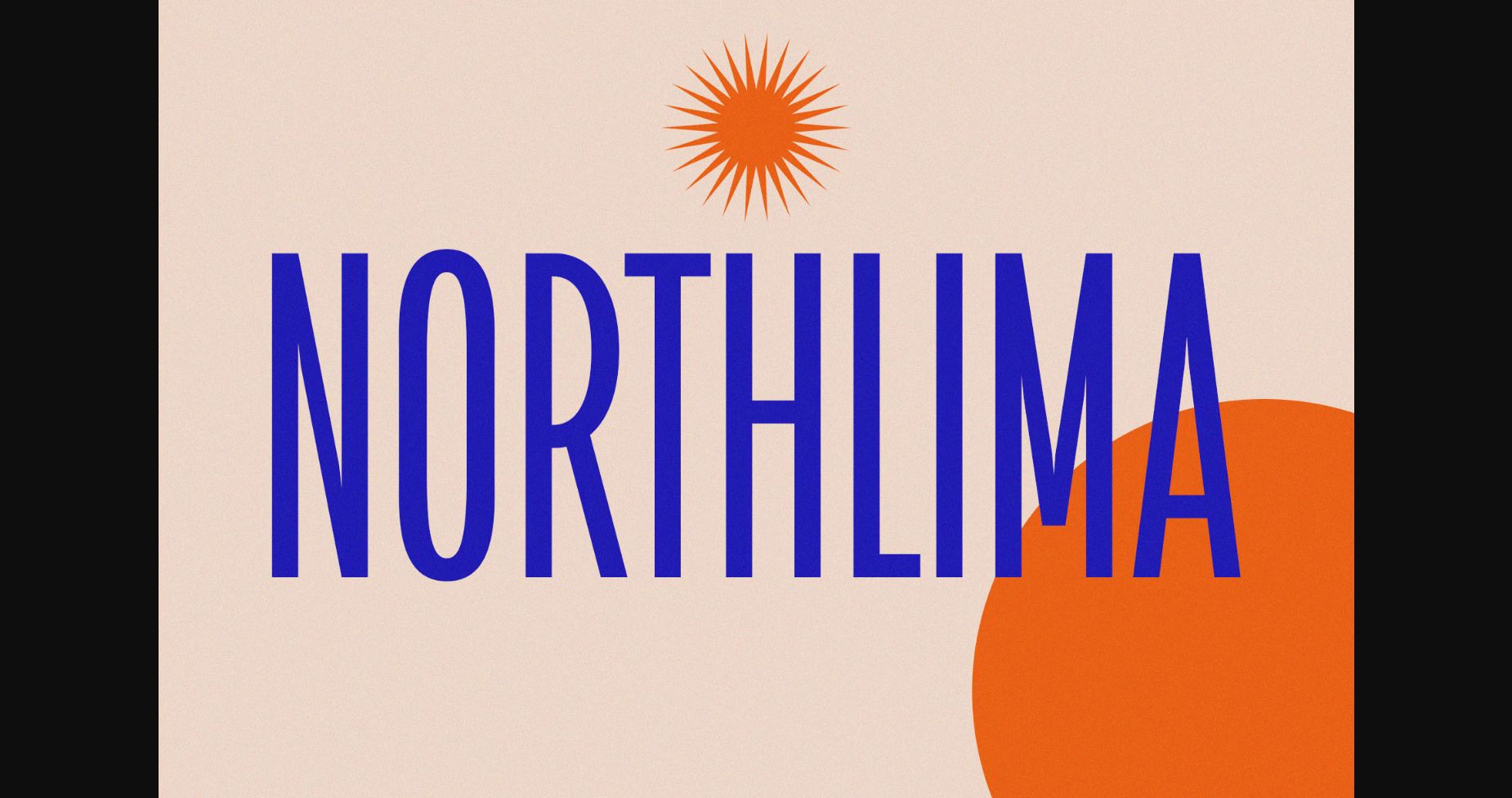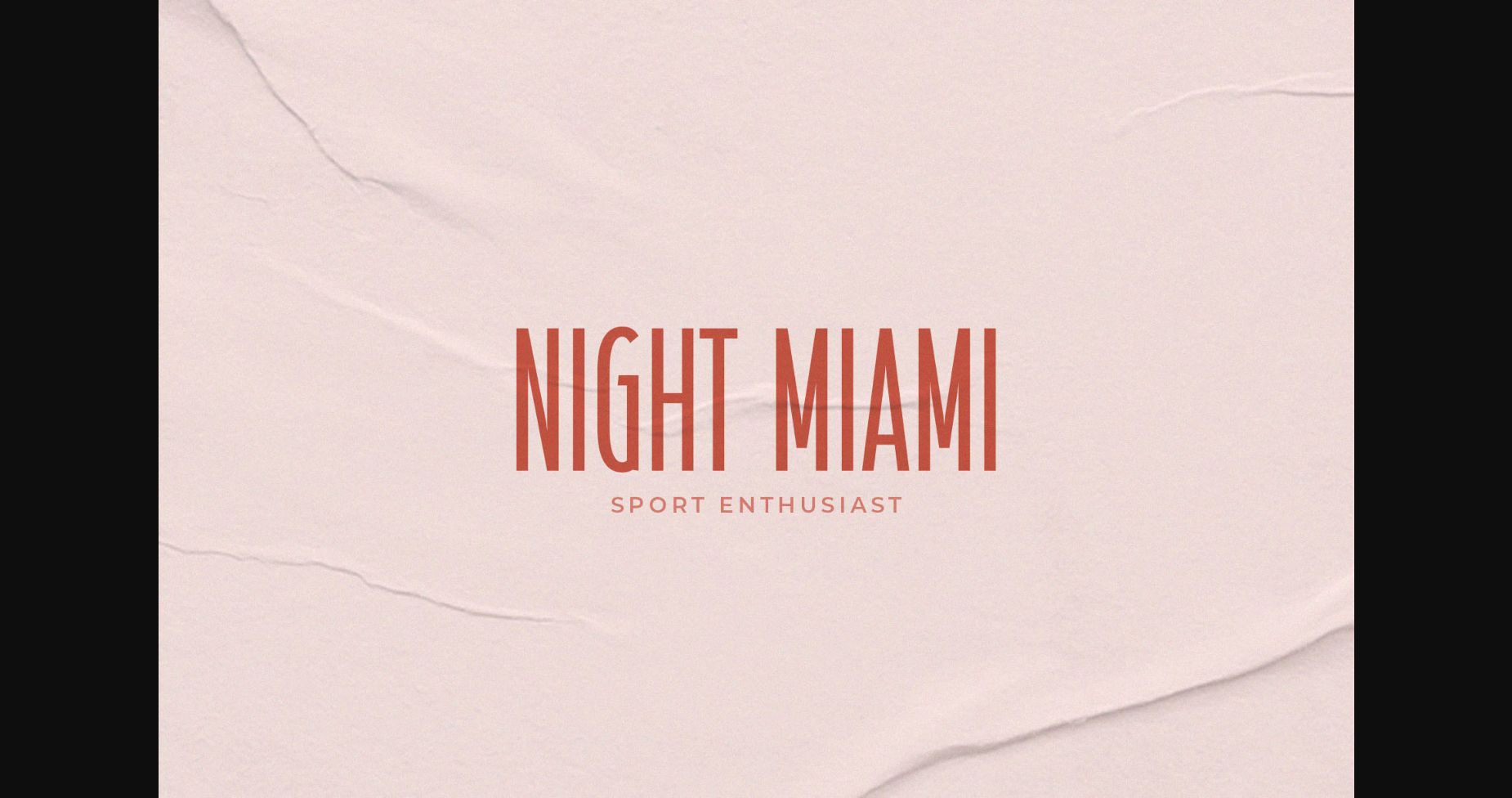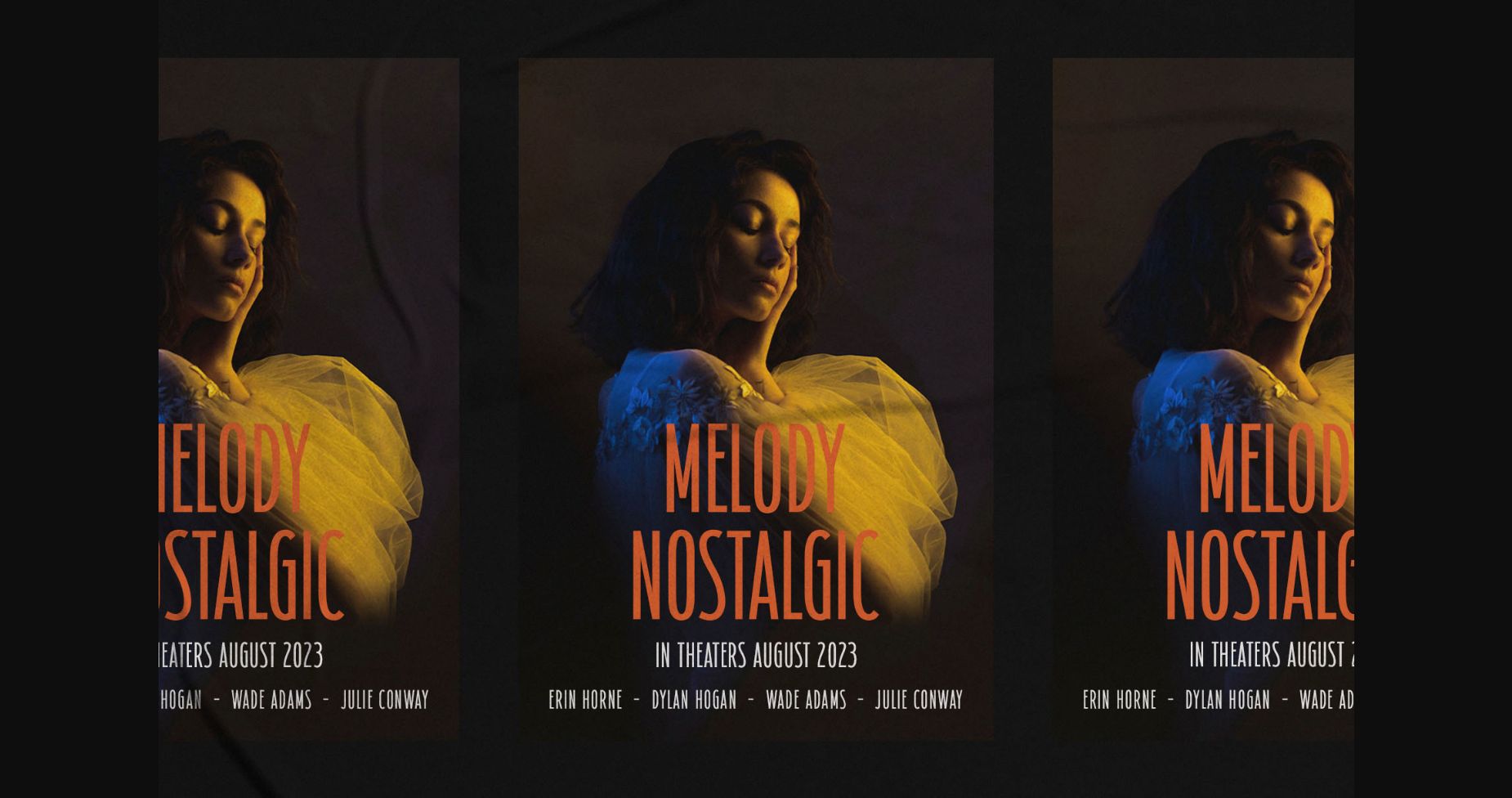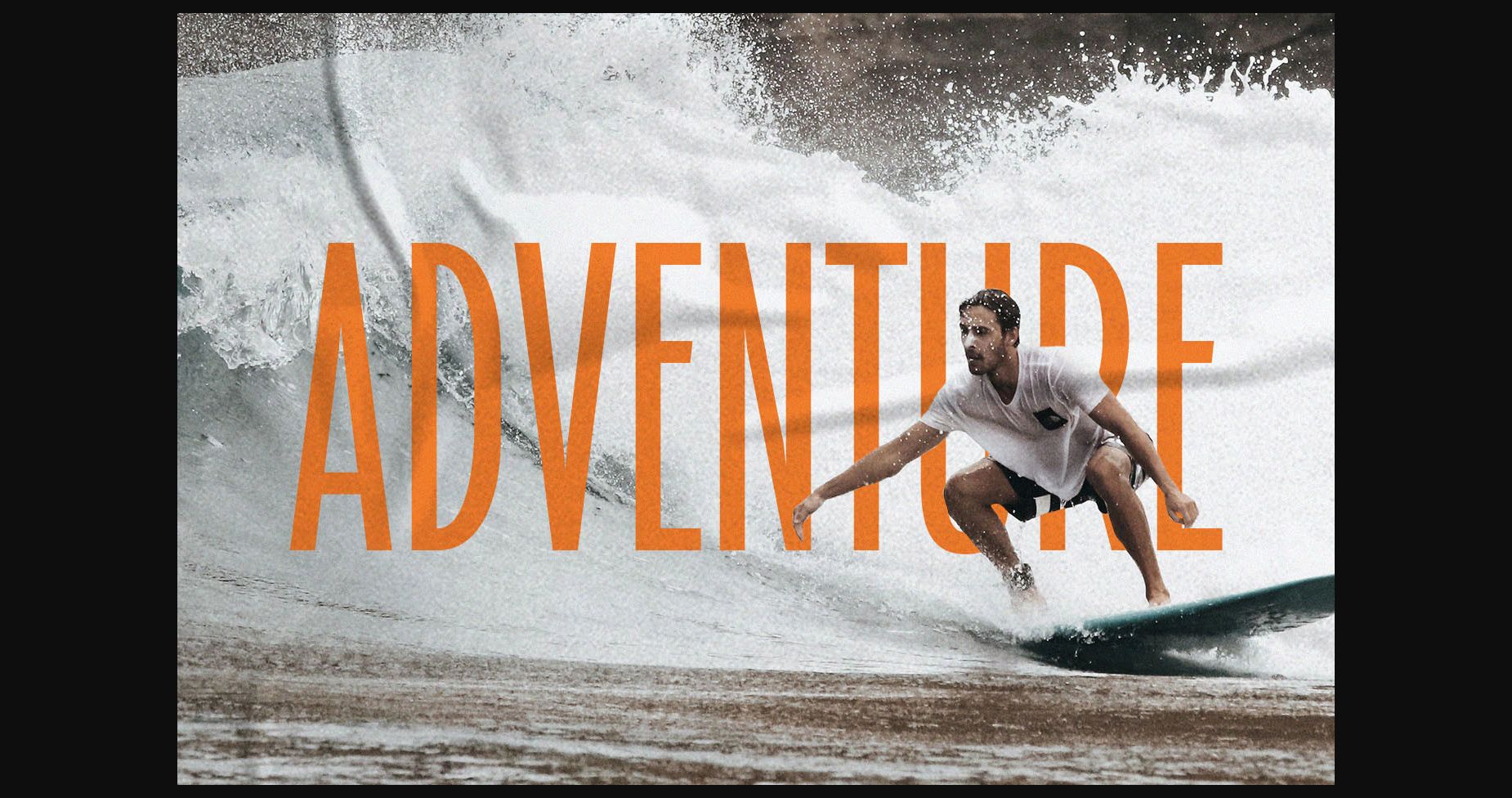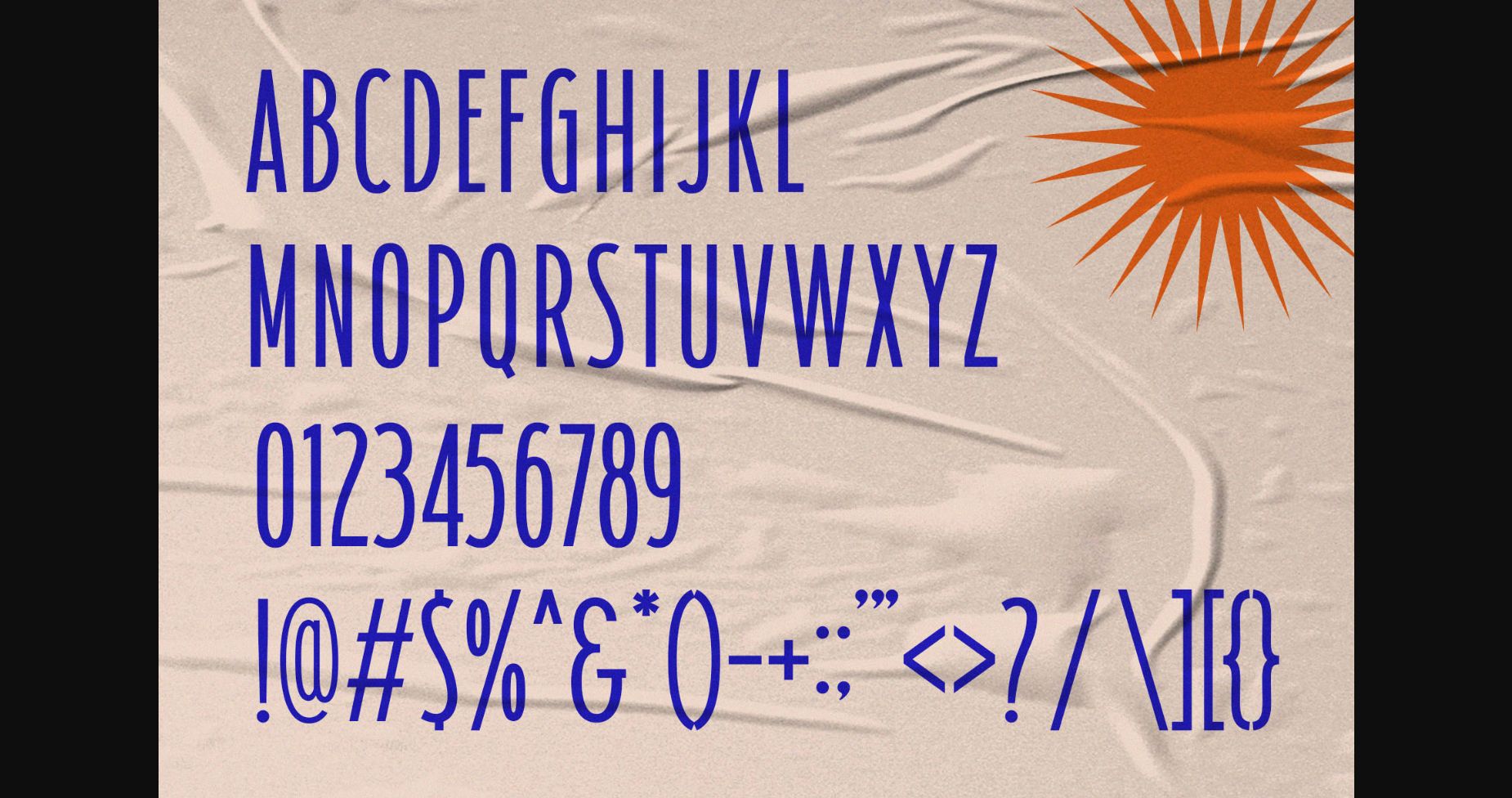
Northlima Font
About Northlima Font
Northlima is a modern condensed sans serif font, best used as a display for headings, logos, branding, magazines, product packaging, and invitations. Northlima comes with clean lines and smooth curves giving any project an extra touch of class.